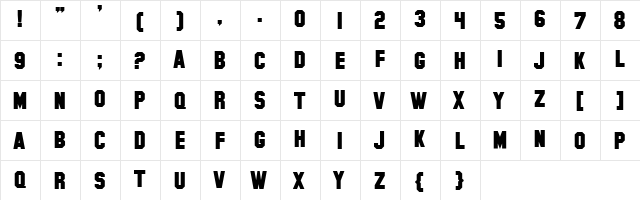
Hollywood Hills Bold
Design Context for Hollywood Hills Typeface
Hollywood Hills echoes the hand-painted signage and woodblock typography of the American frontier, with a warm, rugged personality. Its bold stroke weight gives it real presence on the page.
Perfect for barbecue restaurants, country music branding, vintage poster design, and rustic packaging.
Font Pairing: Combine Hollywood Hills with a simple slab or neutral sans — period-accurate companions reinforce the vintage feel without competing for attention.
Pro Tip: Pair Hollywood Hills with aged textures or distressed backgrounds to amplify its vintage personality.